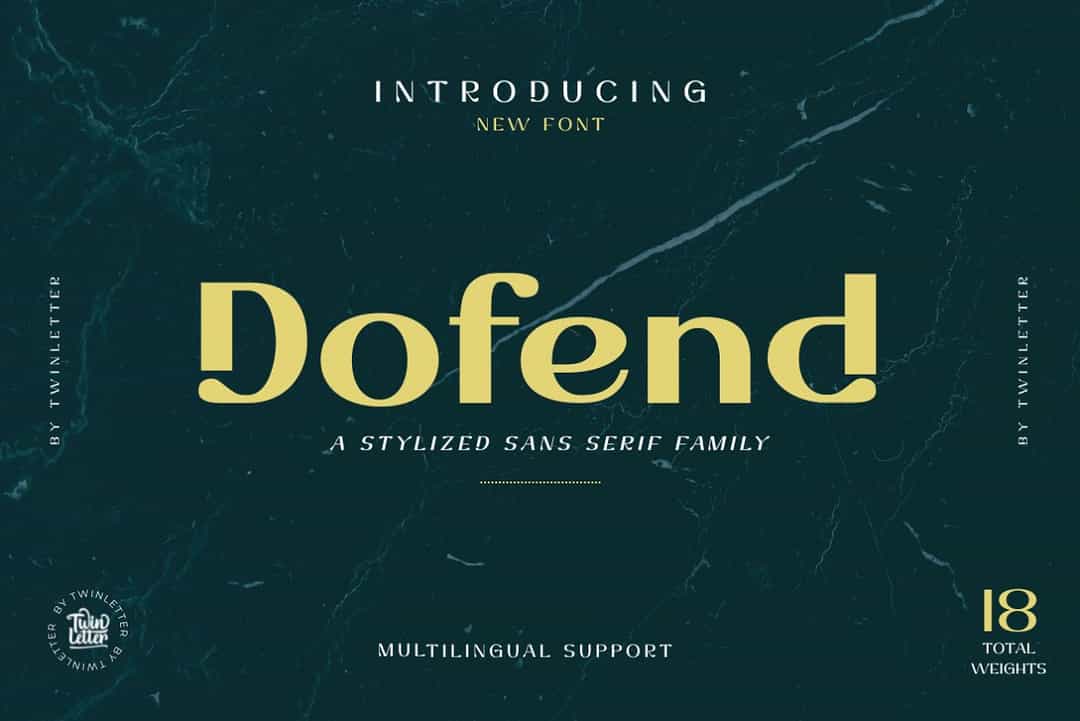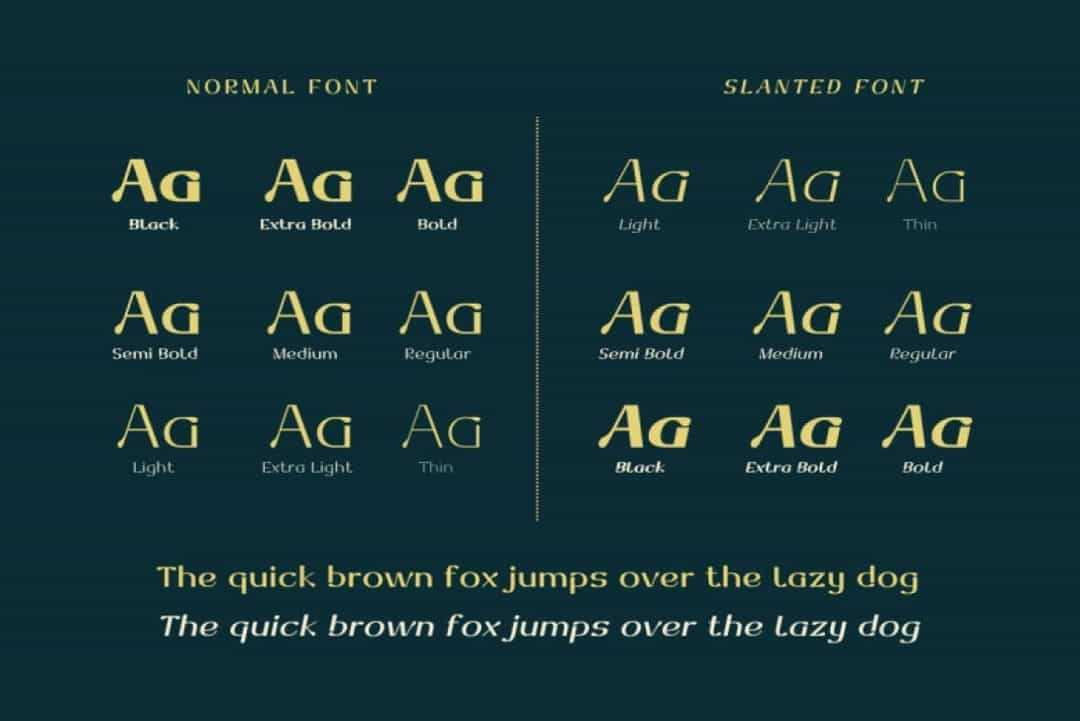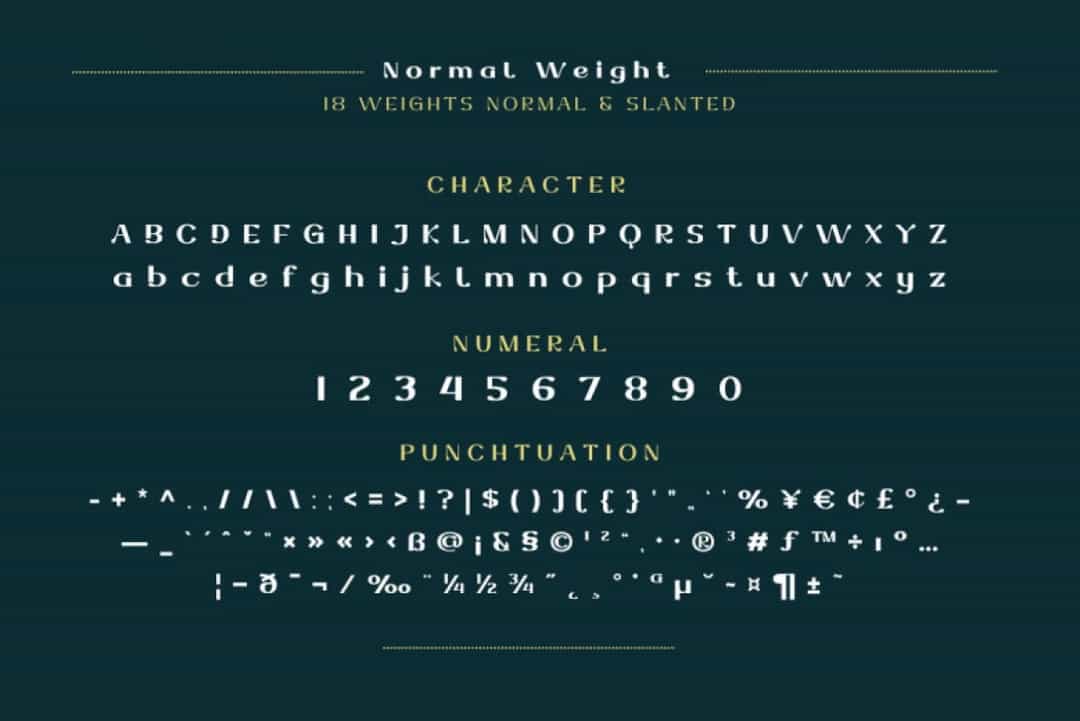
Dofend San Serif is an exquisite font family offering 18 unique styles, making it the ideal solution for all of your design tasks due to its versatile personality and attractiveness. Each set contains styles both display as well as sans serif perfect for posters and logos; use this font family to create captivating graphic designs posters banners text!